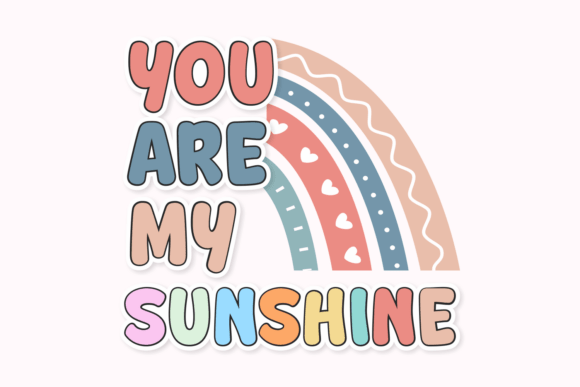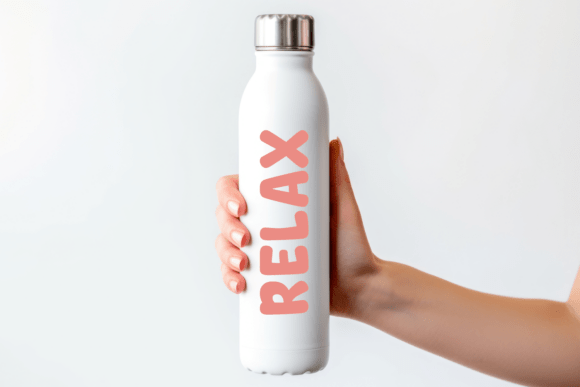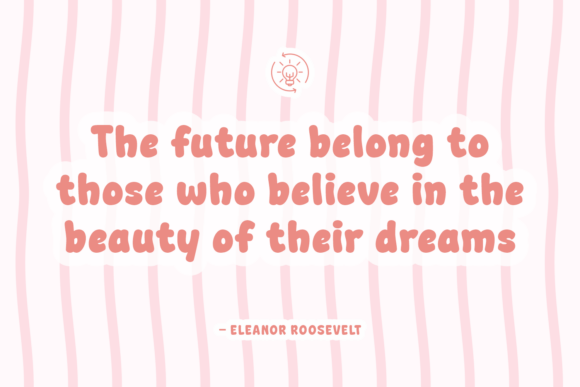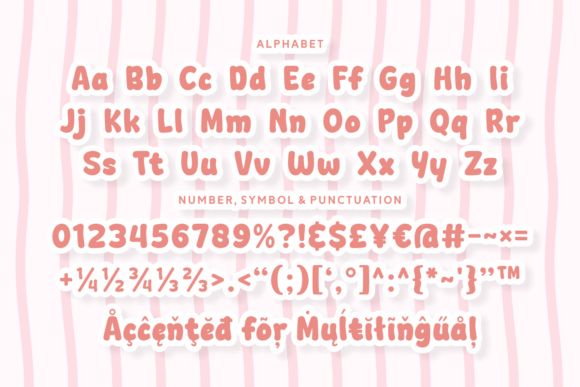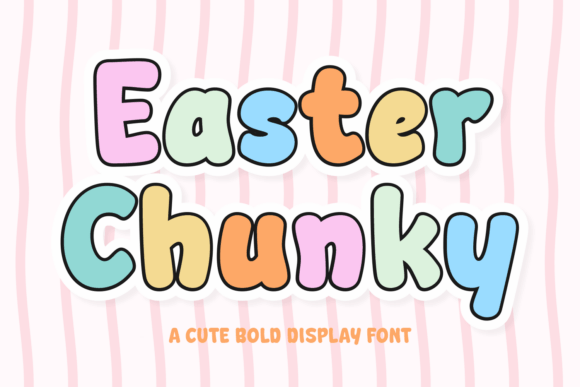
Easter Chunky Font: Add a Burst of Color and Happiness to Your Designs
Are you looking for a font that can bring a touch of playfulness and energy to your creative projects? Look no further than Easter Chunky, a bold and cheerful display font that’s perfect for designers and crafters alike. With its soft, rounded edges and bouncy, hand-drawn feel, this typeface is sure to add a bright and happy touch to every design.
What is Easter Chunky Font?
Easter Chunky is a display font designed to make a statement. Its chunky, bold letters are perfect for grabbing attention and adding a pop of color to your designs. The font’s soft, rounded edges give it a friendly and approachable feel, making it perfect for projects that need to feel energetic and playful.
Easter Chunky is a versatile font that can be used for a wide range of projects. Whether you’re designing a logo, creating a poster, or crafting a greeting card, this font is sure to add a touch of happiness and whimsy. Here are just a few ideas for projects that Easter Chunky is perfect for:
- Logos: Add a bold and cheerful touch to your brand’s logo with Easter Chunky.
- Snacks and treats: Use Easter Chunky to create eye-catching labels and packaging for your favorite snacks and treats.
- Posters: Create bold and colorful posters that grab attention with Easter Chunky.
- Toys and craft supplies: Add a playful touch to your toy or craft supply designs with Easter Chunky.
- T-shirts and stickers: Use Easter Chunky to create fun and colorful designs for t-shirts and stickers.
- Greeting cards: Add a happy and uplifting touch to your greeting cards with Easter Chunky.
Why Choose Easter Chunky?
So why choose Easter Chunky for your next project? Here are just a few reasons:
- Unique and playful feel: Easter Chunky has a one-of-a-kind, hand-drawn feel that’s sure to add a touch of personality to your designs.
- Versatile: This font can be used for a wide range of projects, from logos and posters to greeting cards and craft supplies.
- Easy to read: Despite its bold and chunky design, Easter Chunky is easy to read and understand, making it perfect for designs that need to communicate a message.
- Colorful: Easter Chunky is designed to add a pop of color to your designs, making it perfect for projects that need to grab attention.
How to Use Easter Chunky in Your Designs
Using Easter Chunky in your designs is easy. Here are a few tips to get you started:
- Experiment with colors: Easter Chunky is designed to add a pop of color to your designs, so don’t be afraid to experiment with different colors and combinations.
- Mix and match: Try pairing Easter Chunky with other fonts and design elements to create a unique and eye-catching design.
- Play with size: Easter Chunky looks great in a variety of sizes, from small and subtle to large and bold.
Easter Chunky is a bold and cheerful display font that’s perfect for designers and crafters alike. With its soft, rounded edges and bouncy, hand-drawn feel, this typeface is sure to add a bright and happy touch to every design. Whether you’re creating a logo, poster, or greeting card, Easter Chunky is a versatile font that’s sure to bring color and happiness to your creative projects.